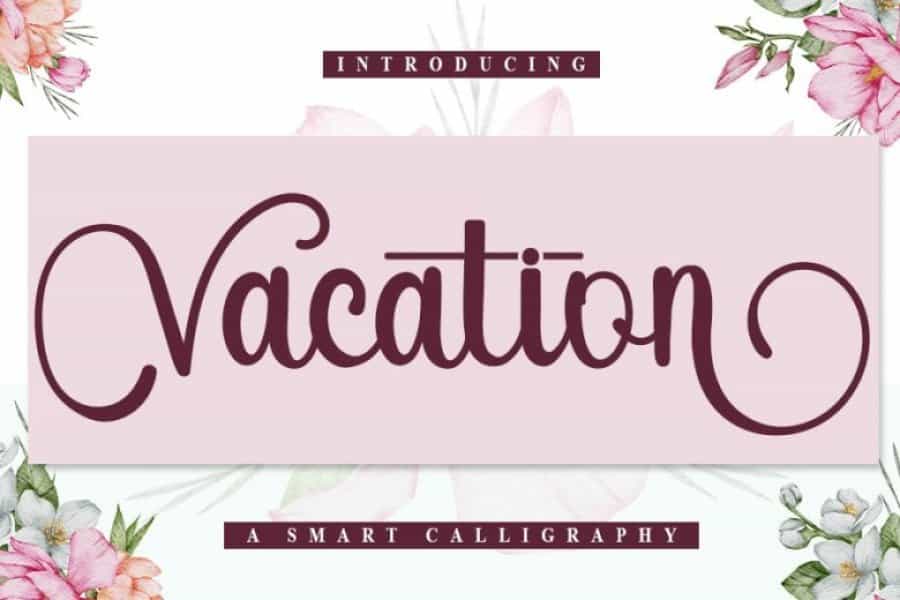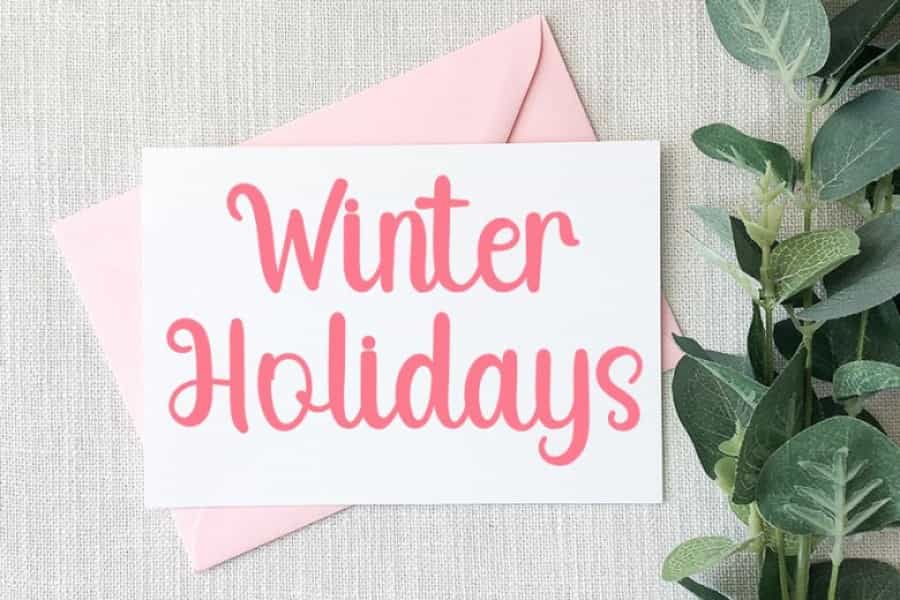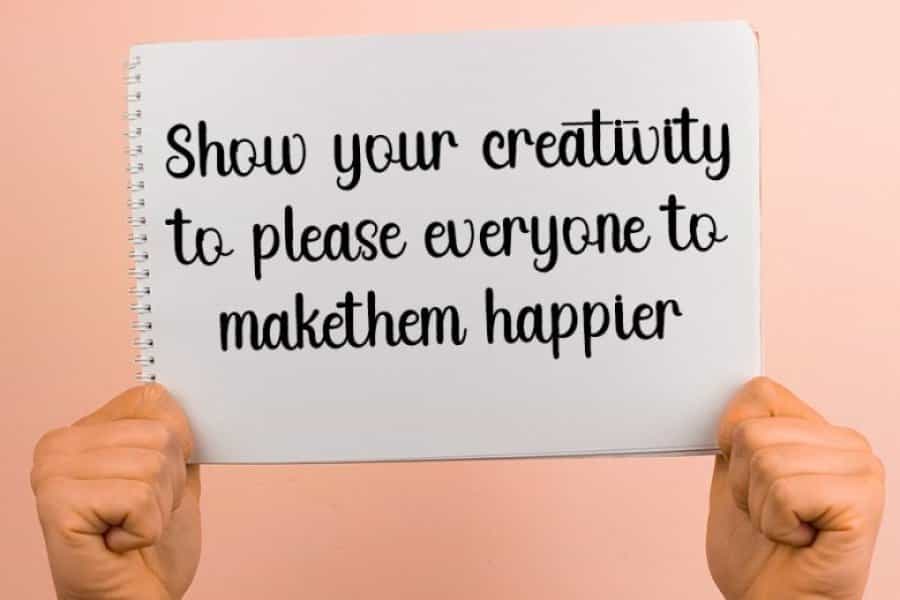
Discover Vacation Font, part of the Calligraphy collection—a versatile and unique font perfect for adding a personal touch to your projects. Download it for free and enjoy crafting designs with style, from invitations to social media posts. This font is available exclusively for personal use, giving you the freedom to create without limits. Unlock your creativity with Vacation Font today!
Vacation is an amazing calligraphy font perfect for many applications such as wedding invitations, logos T-shirts headings YouTube banners layer banners mockups banners etc. PUA encoded, it allows all glyphs and swashes to be easily utilized!